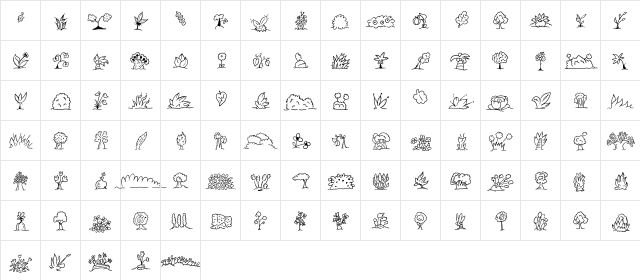
MiniPics UprootedLeaf Regular
Design Context for MiniPics UprootedLeaf Typeface
MiniPics UprootedLeaf is a composed and adaptable typeface that performs quietly and consistently across a wide range of design contexts.